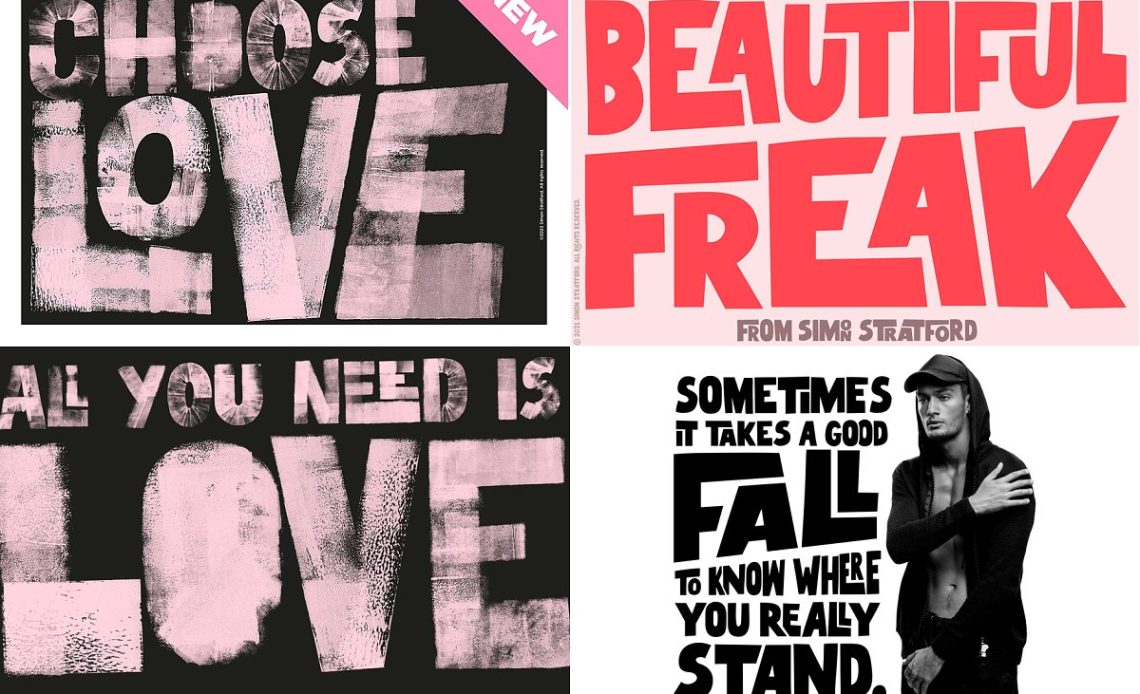
Introducing the Display Font Bundle by itsmesimon, a collection that will take your designs to the next level. Created by Simon Stratford, this bundle includes two stunning fonts: Beautiful Freak and Choose Love. And here's the best part - it's only available for one month at a discounted price of $30 (normally $53)!
Let's start with Beautiful Freak, a modern bold and quirky display font that exudes a fun and trendy street style vibe. Whether you're working on posters, t-shirts, or packaging, Beautiful Freak will give your designs that alternative minimal look and make them stand out from the crowd. Hand-drawn with irregular outlines, this font has a charming and modern feel. The characters jump around the baseline, adding a unique touch to your work. Plus, it comes with a wide range of alternatives and ligatures, allowing you to create cool type lockups that resemble hand lettering. With at least three alternatives for each A to Z character and 87 ligatures, the possibilities are endless.
Now, let's talk about the second font in this bundle - Choose Love. If you loved Beautiful Freak, you're going to fall head over heels for Choose Love. It's the latest creation by itsmesimon and is perfect for those seeking a fresh and contemporary vibe. With its sleek and stylish design, Choose Love complements any project, from branding to social media graphics.